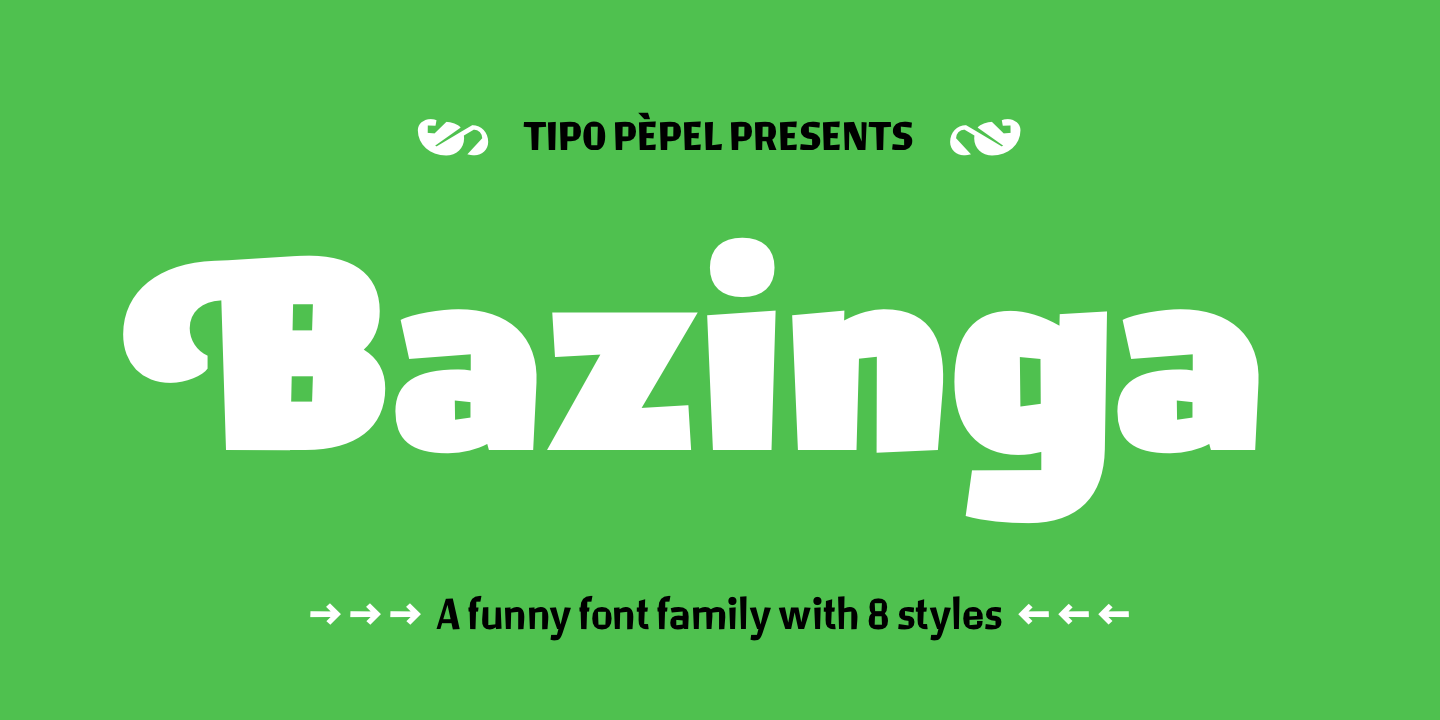
Bazinga Font is perfect for comedy club posters, humorous greeting cards, playful children's book titles, comedy show merchandise, fun party invitations, entertainment brand logos, comic convention graphics, gaming interface designs, and any design project that requires energetic humor and infectious playfulness.
What makes Bazinga Font so exciting is its incredible ability to instantly inject pure joy and comedic energy into any design with its wonderfully exaggerated letterforms that practically bounce off the page with infectious enthusiasm. This font embodies the spirit of laughter and fun with its dynamic, animated character shapes that feel like they're ready to deliver the perfect punchline. The carefully crafted characters feature playful proportions and energetic angles that communicate humor, excitement, and genuine entertainment value, creating the perfect typography solution for projects that need to make people smile and engage with lighthearted content.
The Bazinga Font family typically includes regular weight variations with comprehensive character sets featuring uppercase and lowercase letters, numerals, punctuation marks, and playful design elements. Some versions may offer additional weights like bold or extra bold variants, along with animated-style alternates that provide designers with entertaining options for creating dynamic, humor-filled layouts with genuine comedic impact.
Bazinga Font Free Download has become increasingly popular among entertainment designers, comedy professionals, and creative individuals who specialize in humorous and family-friendly content. This distinctive typeface performs exceptionally well in both digital and print applications where fun, approachable character and comedic timing are essential for connecting with audiences seeking entertainment and lighthearted experiences.
The font's comedic design makes it particularly effective for entertainment industry projects, children's products, gaming applications, and social media content that needs to communicate fun and accessibility. Its energetic character shapes and excellent readability ensure professional results across various media formats.
Designers choose Bazinga Font for its ability to instantly create positive emotional connections while delivering clear, readable communication that enhances user experience. The font's playful construction works brilliantly on everything from mobile game interfaces to large-scale entertainment signage.
Whether you're developing comedy entertainment materials, children's educational content, gaming interfaces, or fun social media campaigns, Bazinga Font delivers the perfect combination of humor and functionality that transforms ordinary communications into memorable, smile-inducing experiences that audiences love to engage with.